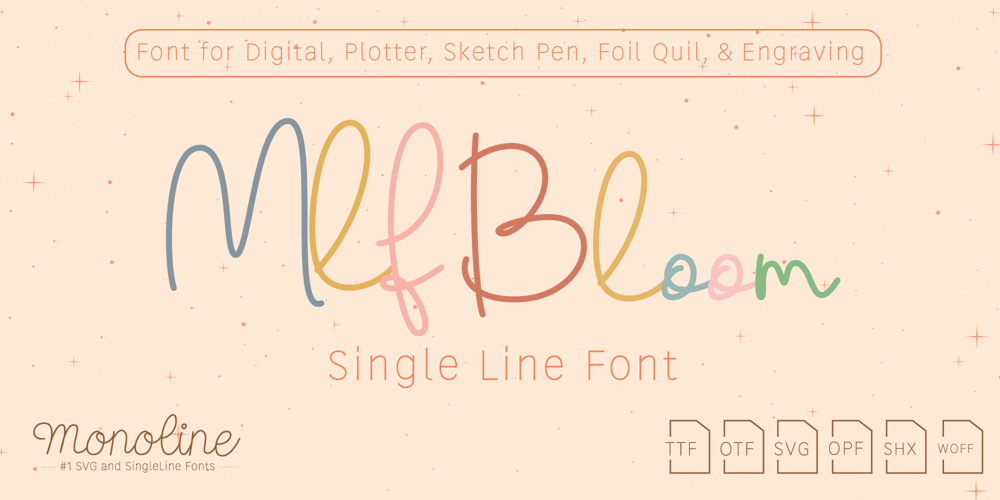
MLF Bloom Single Line Font Family was designed by Refialdi Dwi Putranto and published by MonolineFonts. MLF Bloom Single Line contains 3 styles and family package options. Welcome to a world where playful elegance meets handwritten charm with MLF Bloom SingleLine. This delightful cursive font is designed to bring a touch of whimsy and sophistication to your projects. Its fluid, looping strokes and graceful curves make it perfect for adding a personal, handwritten flair to any design.Key Features: Handwritten Cursive Style: The playful, flowing lines of MLF Bloom SingleLine capture the essence of a hand-penned script, infusing your work with a warm, inviting feel. Single-Line Precision: Ideal for use with plotters, CNC machines, and engraving, this single-line font maintains its charming character while ensuring clean and precise cuts. Versatile Applications: Whether you’re crafting custom invitations, personalized gifts, or stylish branding, MLF Bloom SingleLine adapts beautifully to various creative projects. Applications: Custom Vinyl Decals CNC Engraving Laser Cutting Wedding Invitations Web Design And more! Elevate your designs with the elegance and precision of MLF Bloom SingleLine. Whether you’re crafting custom products or creating digital masterpieces, this font blends vintage charm with modern functionality seamlessly.